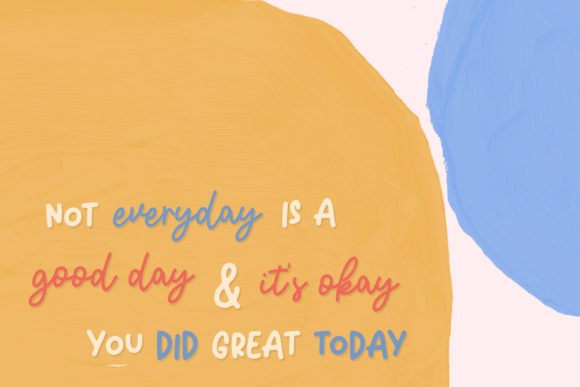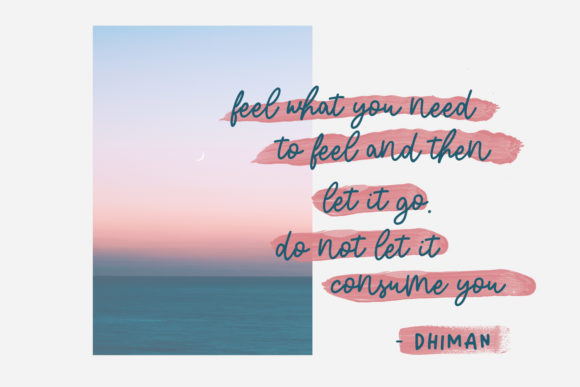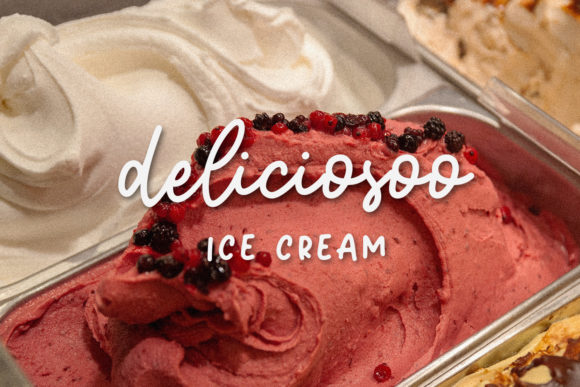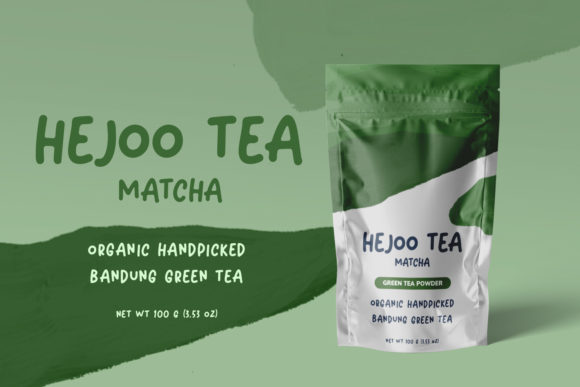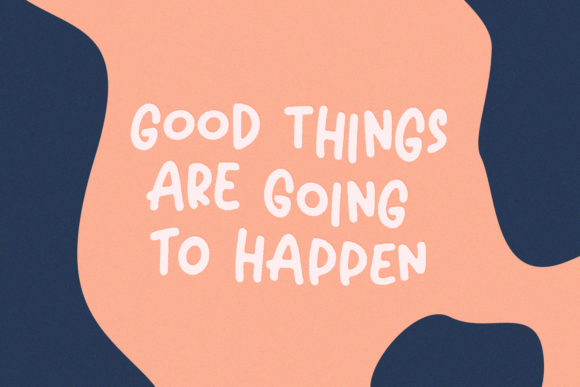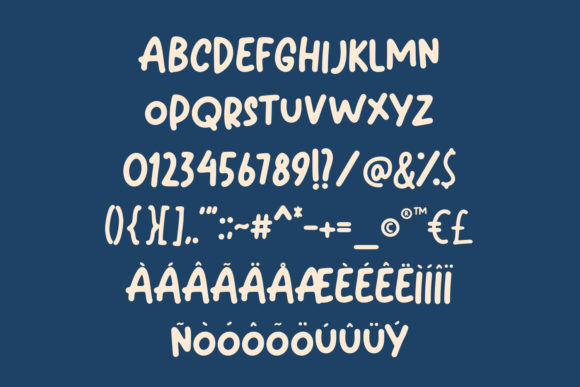
Introducing Blue Cirrus Font: The Perfect Duo for Creative Projects
Are you a designer, crafter, or DIY enthusiast looking for a font that can add a touch of playfulness and whimsy to your projects? Look no further than the Blue Cirrus Font, a delightful duo font that combines a handwritten and display font in one. Specially crafted for children, birthday cards, cartoons, and comic purposes, this font is sure to bring a smile to anyone’s face.
The Story Behind Blue Cirrus Font
The Blue Cirrus Font was created with the intention of providing a fun and versatile font that can be used in a variety of creative projects. The font’s design is inspired by the carefree and imaginative world of childhood, making it perfect for projects that require a playful touch. Whether you’re designing a birthday card, creating a cartoon, or crafting a comic book, this font is sure to add a dash of personality and charm.
What Makes Blue Cirrus Font So Special?
So, what sets the Blue Cirrus Font apart from other fonts out there? Here are just a few features that make it so special:
- Handwritten and Display Font Duo: The Blue Cirrus Font comes with two fonts in one – a handwritten font and a display font. This allows you to mix and match the fonts to create a unique look that’s all your own.
- Playful and Whimsical Design: The font’s design is playful, whimsical, and full of personality. It’s the perfect choice for projects that require a lighthearted touch.
- Perfect for Children and Kids’ Projects: The Blue Cirrus Font is specially crafted for children and kids’ projects, making it perfect for designing birthday cards, kids’ party invitations, and more.
- Great for Cartoons and Comics: The font’s bold and playful design makes it a great choice for cartoons and comics. Use it to add a pop of personality to your characters and storylines.
How to Use Blue Cirrus Font in Your Projects
- Pair the Handwritten and Display Fonts: Experiment with pairing the handwritten and display fonts to create a unique look. Use the handwritten font for body text and the display font for headings and titles.
- Add a Pop of Color: The Blue Cirrus Font comes in a range of colors, so don’t be afraid to add a pop of color to your projects. Use the font in blue, pink, yellow, or any other color that matches your brand or design style.
- Get Creative with Typography: The Blue Cirrus Font is perfect for creative typography. Experiment with different font sizes, styles, and arrangements to add visual interest to your projects.
Key Features of Blue Cirrus Font
- Handwritten and display font duo
- Playful and whimsical design
- Perfect for children and kids’ projects
- Great for cartoons and comics
- Available in a range of colors
- Easy to use and pair with other fonts